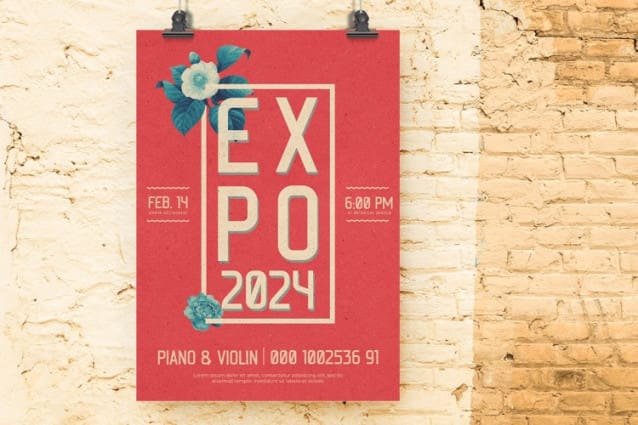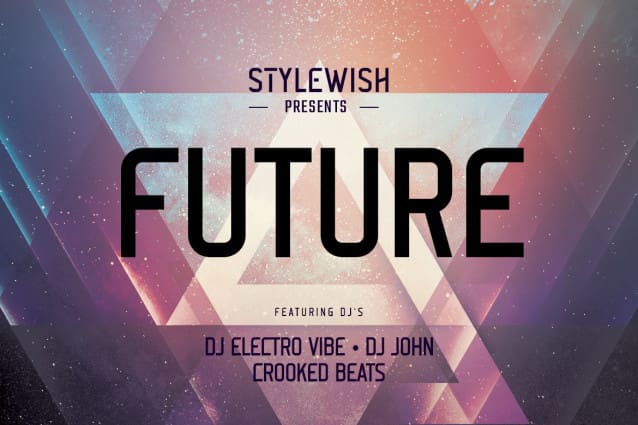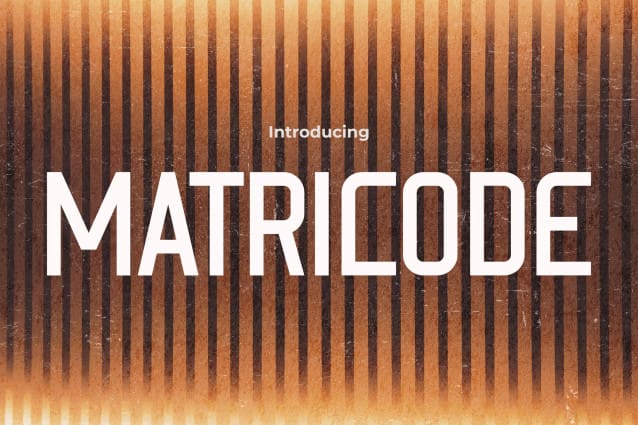
Matricode Font
Matricode Font, a fusion of graffiti aesthetics and bold display elements. Each character meticulously crafted to express the spirited essence of the streets, emanating energy and courage. With bold contours and sharp lines reminiscent of graffiti artistry, MatricodeFont exudes a rebellious yet modern elegance. Whether for posters or product designs, MatricodeFont offers limitless possibilities to convey your message with captivating visual strength. It’s a canvas for graphic designers seeking to push the boundaries of conventional typography, perfect for projects demanding a powerful urban edge. Matricode Font stands as a symbol of bold creativity, ensuring your designs stand out with its superior quality and distinct character.